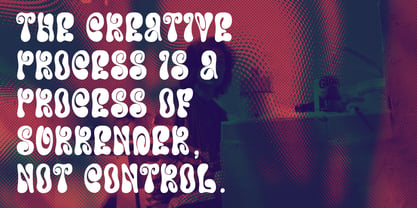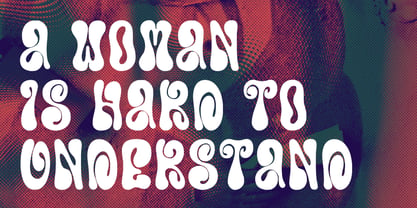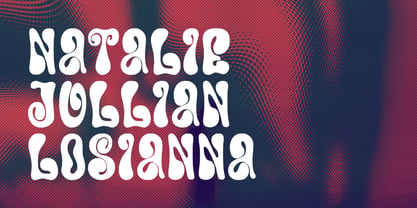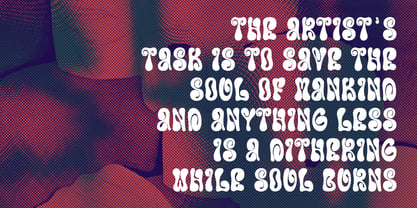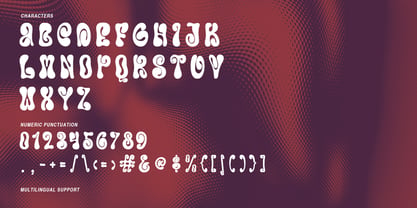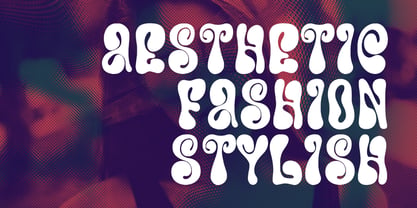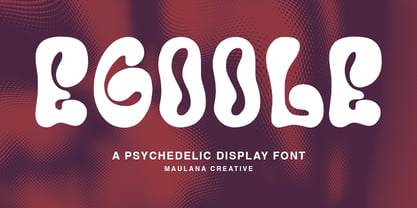
MC Egoole
von Maulana Creative
Die Schriftfamilie MC Egoole wurde von Gilang Maulana entworfen und von Maulana Creative veröffentlicht. MC Egoole enthält 1 Stile. Mehr über diese Familie
Egoole is a psychedelic display handwritten font. With bold stroke and fun character. To give you an extra creative work. Egoole font support multilingual more than 100+ language. This font is good for logo design, Social media, Movie Titles, Books Titles, a short text even a long text letter and good for your secondary text font with sans or serif. Make a stunning work with Egoole is a psychedelic display handwritten font.
Designer: Gilang Maulana
Foundry: Maulana Creative